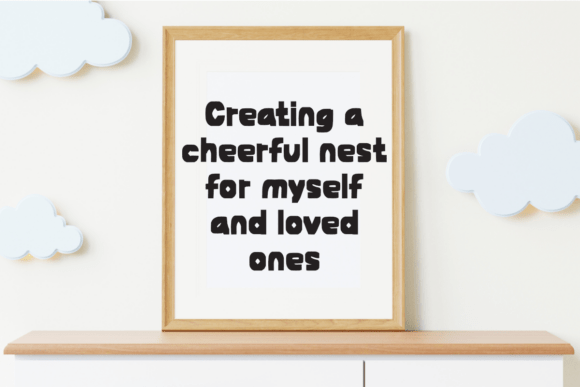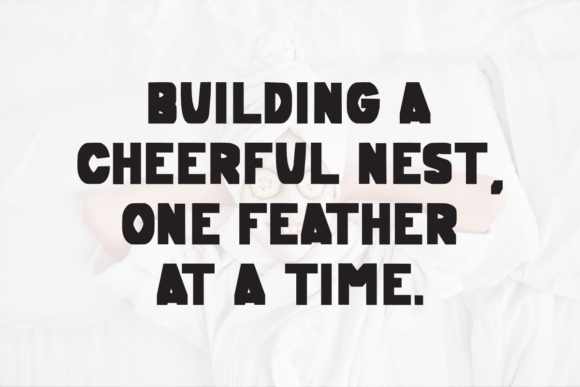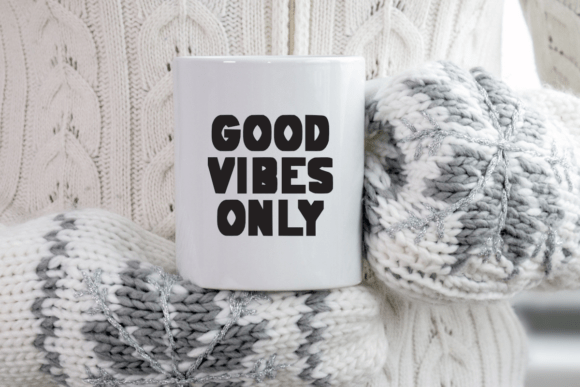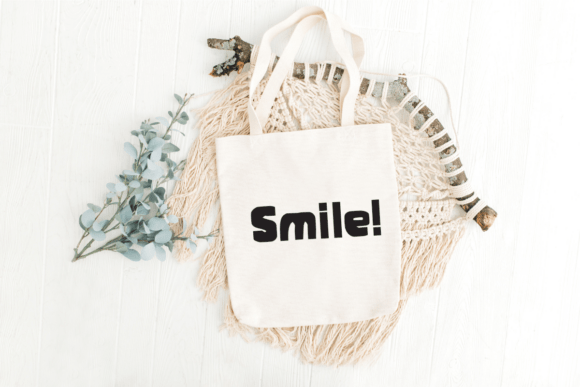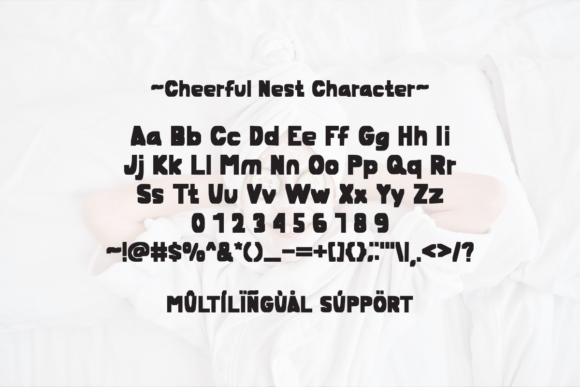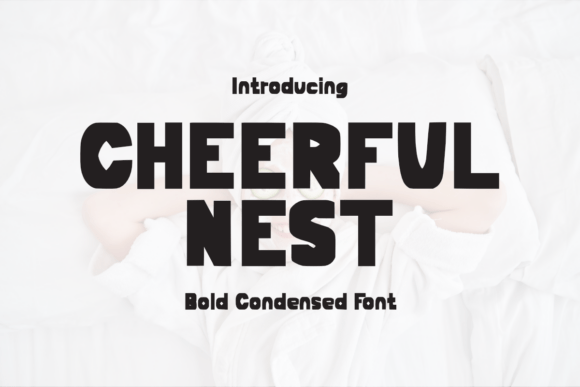
Introducing Cheerful Nest Font: The Perfect Blend of Boldness and Friendliness
In the world of typography, finding the right font can make all the difference in creating a lasting impression. For designers and crafters looking for a typeface that combines strength with approachability, Cheerful Nest Font is an excellent choice. This bold and condensed font boasts a modern charm that effortlessly stands out, making it perfect for branding, headlines, or packaging.
What Makes Cheerful Nest Font Stand Out?
Cheerful Nest Font is designed to make a statement. Its bold and condensed structure gives it a unique presence that commands attention. The modern charm of this font lies in its clean lines, balanced proportions, and a friendly demeanor that sets it apart from other typefaces. Whether you’re working on a logo, a headline, or packaging design, Cheerful Nest Font brings a level of sophistication and approachability that’s hard to achieve with other fonts.
The Perfect Balance of Strength and Friendliness
One of the key benefits of Cheerful Nest Font is its ability to convey strength and friendliness simultaneously. The boldness of the font ensures that your message is seen and heard, while its friendly undertones make it approachable and engaging. This balance is crucial for designers and crafters who want to create a lasting impression without coming across as too aggressive or too bland.
Use Cases for Cheerful Nest Font
So, where can you use Cheerful Nest Font? The possibilities are endless, but here are some ideas to get you started:
- Branding: Use Cheerful Nest Font as a logo or incorporate it into your brand’s typography to create a bold and memorable identity.
- Headlines: Add a touch of modern charm to your headlines with Cheerful Nest Font, making them stand out on billboards, magazines, or digital platforms.
- Packaging: Give your product packaging a makeover with Cheerful Nest Font, making it more eye-catching and appealing to customers.
Why Designers and Crafters Love Cheerful Nest Font
Designers and crafters love Cheerful Nest Font for several reasons:
- Versatility: This font can be used across various platforms and mediums, from digital designs to print materials.
- Legibility: Cheerful Nest Font is easy to read, even in smaller sizes, making it perfect for body text or captions.
- Customization: With its bold and condensed structure, Cheerful Nest Font can be easily customized to fit your design needs.
Tips for Using Cheerful Nest Font Effectively
To get the most out of Cheerful Nest Font, here are some tips to keep in mind:
- Pair it with a neutral font: Balance out the boldness of Cheerful Nest Font by pairing it with a neutral font for body text or captions.
- Experiment with colors: Try out different color combinations to find the perfect match for your design and brand.
- Play with sizes: Use Cheerful Nest Font in various sizes to create visual hierarchy and emphasize key messages.
Cheerful Nest Font is a versatile and modern typeface that offers the perfect blend of boldness and friendliness. With its clean lines, balanced proportions, and approachable demeanor, this font is ideal for designers and crafters looking to create a lasting impression. Whether you’re working on branding, headlines, or packaging, Cheerful Nest Font is sure to make your design stand out.